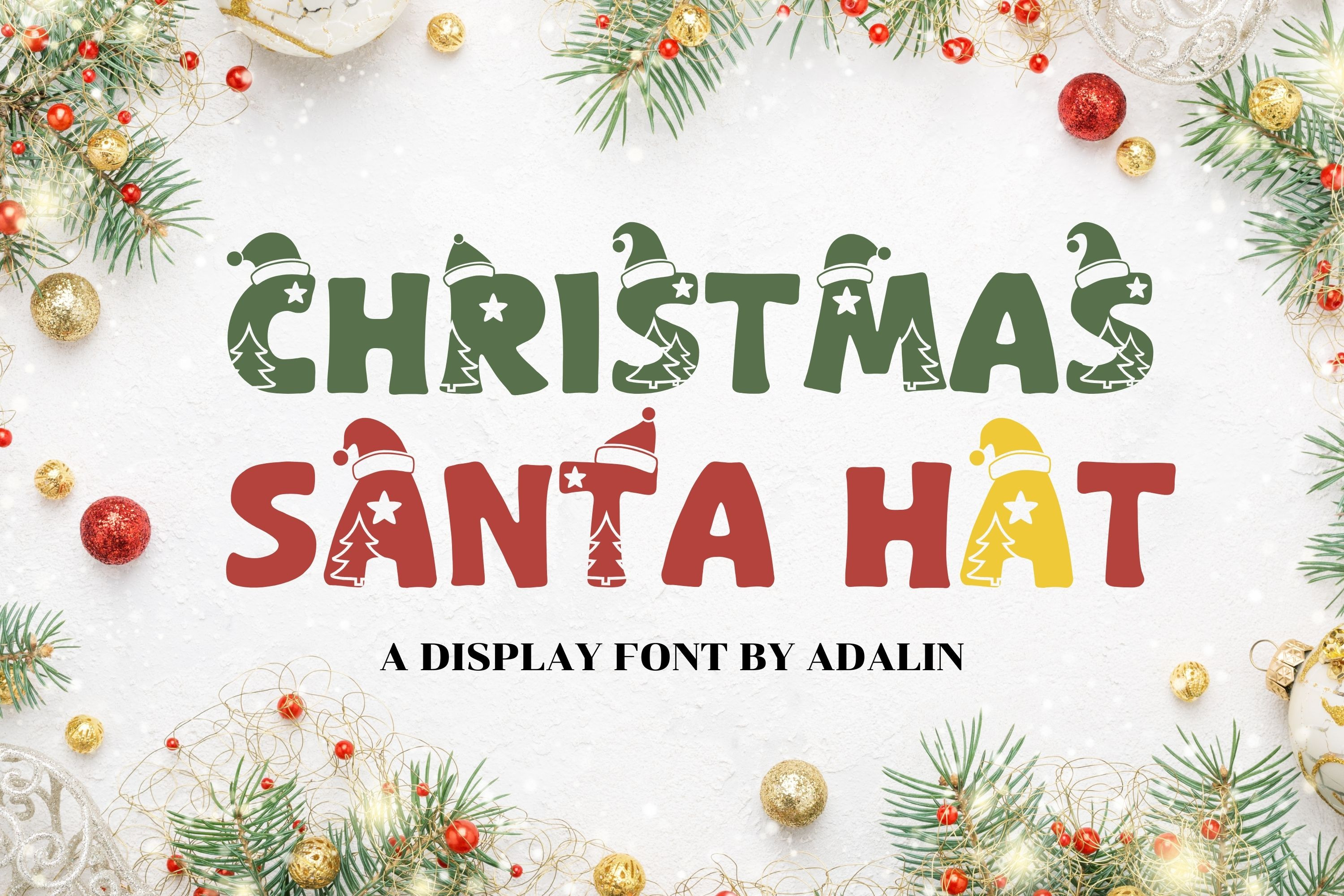
Christmas Santa Hat Display Font
Christmas Santa Hat font is a cute and fun fonts. It will look fantastic on all your Christmas-themed designs including t-shirt design, mug designs, digital designs, crafts, cards, and any projects!
This font is unicase (containing a-z, a mix of upper and lowercase). Uppercase keys are mapped to solid a-z and lowercase keys are mapped to a-z decorative Santa Hat Themed alternates.